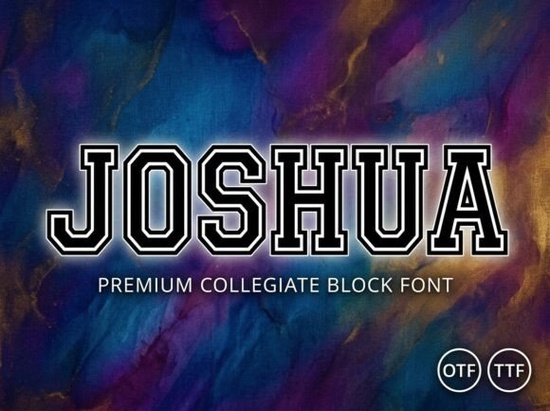
The Joshua Font is a standout choice for anyone looking to add a strong, traditional feel to their designs. Whether you're creating team logos, sports banners, or social media headers, this font delivers a bold and impactful look. Its slab-serif style gives it a classic “varsity” vibe that’s perfect for athletic branding and school spirit. The sturdy structure and crisp dual-outline make it easy to read while maintaining a commanding presence.
Designed with versatility in mind, the Joshua Font works well across a range of projects. It’s ideal for university sports teams, high school clubs, and even eSports organizations that want to establish a strong visual identity. The font’s authoritative weight ensures it stands out without being overwhelming, making it a go-to option for designers who need clarity and style in equal measure.
When choosing a font like Joshua, it's important to consider how it will be used. For example, if you're designing for print, you’ll want a font that looks sharp at different sizes. The Joshua Font is optimized for both digital and print use, ensuring it maintains its clarity and impact regardless of the medium. This makes it a great fit for print-on-demand sellers, small businesses, and creative hobbyists who need reliable typography.
One of the key strengths of the Joshua Font is its ability to convey a sense of strength and unity. The bold letterforms and structured design make it an excellent choice for projects that require a strong visual statement. Whether you're working on a school mascot logo or a team banner, this font helps communicate the values of teamwork and tradition effectively.
When using the Joshua Font, keep in mind the context of your design. While it’s powerful on its own, it may benefit from being paired with simpler fonts for balance. For instance, combining it with a clean sans-serif typeface can help draw attention to key elements without overwhelming the viewer. This approach is especially useful for web design, where readability is crucial.
If you’re new to using block fonts like Joshua, start by experimenting with different sizes and weights. Testing the font in various settings will help you understand how it performs in real-world applications. You can also look for inspiration in existing designs that use similar styles to see what works best for your project.
Whether you're a designer, craftsperson, or small business owner, the Joshua Font offers a reliable and stylish solution for your typography needs. Its strong, classic look makes it a versatile tool that can enhance a wide range of creative projects. By choosing the right font, you can elevate the visual appeal of your work while maintaining clarity and impact.